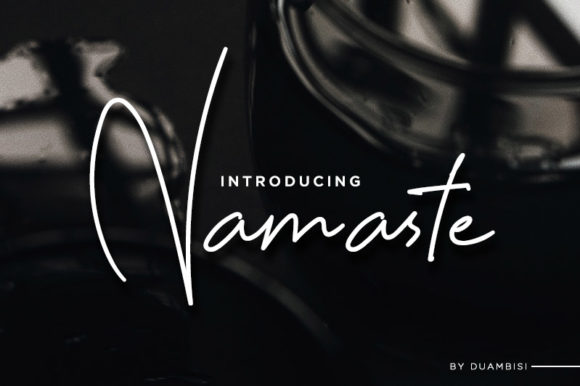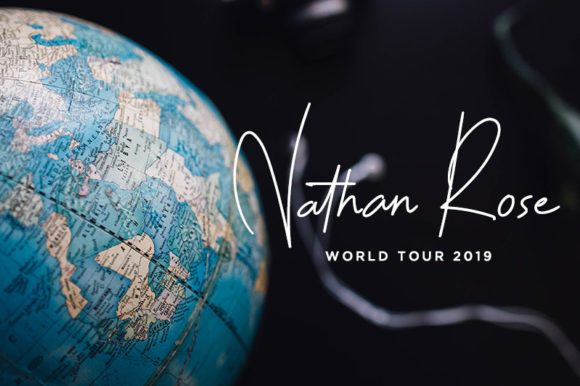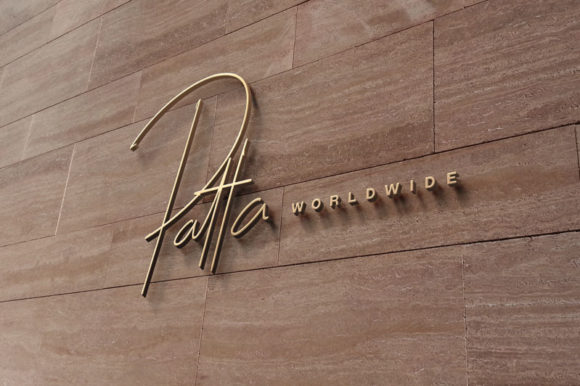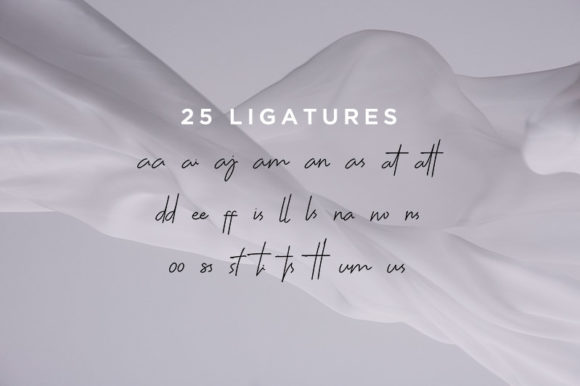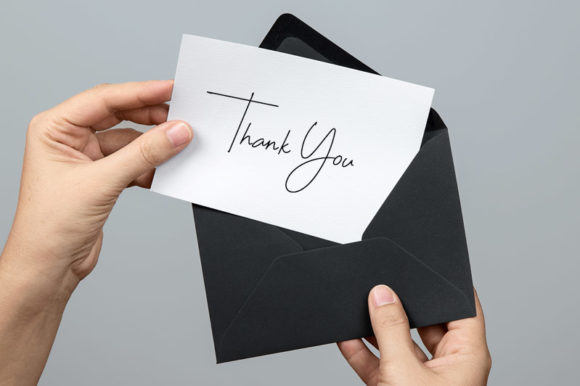
Namaste Font
About Namaste Font
The Namaste is a simple script font. It has a great readability and is perfect for branding, titles, wedding invitations, and every other design which needs a natural touch.